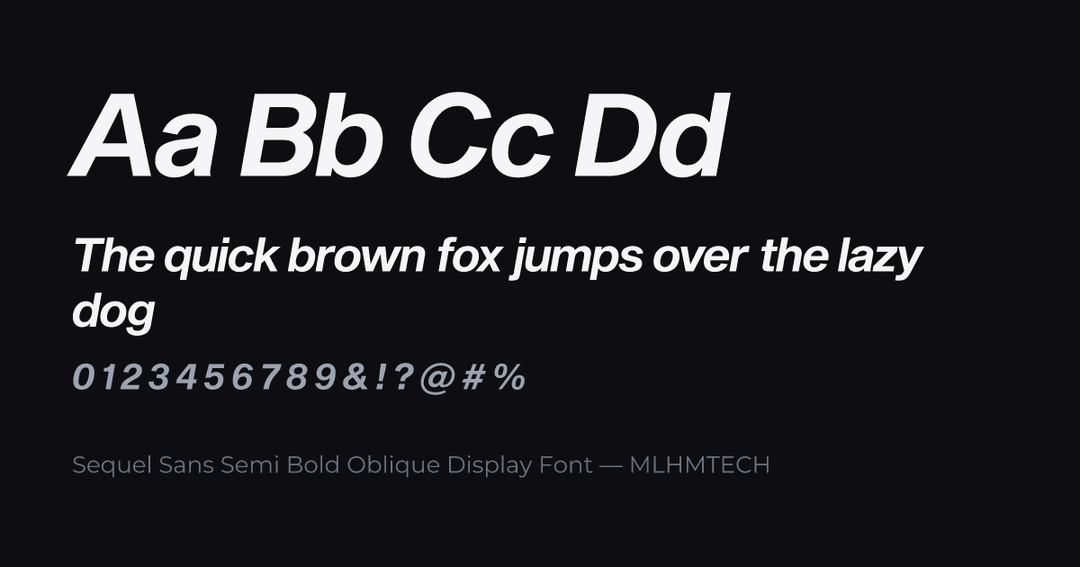
Sequel Sans Semi Bold Oblique Display Font
Sequel Sans Semi Bold Oblique Display is a modern, clean sans-serif font with an oblique slant, ideal for impactful headings and branding.
Sequel Sans Semi Bold Oblique Display is a versatile sans-serif typeface that combines a semi-bold weight with an oblique (slanted) style, giving your designs a dynamic and contemporary feel. Its clean lines and geometric structure make it perfect for headlines, logos, posters, and any project that requires a bold yet refined typographic presence.
This font is part of the Sequel Sans family, known for its extensive range of weights and styles. The oblique version adds a subtle forward momentum, making it suitable for motion graphics, video titles, and modern editorial layouts. Whether you're working on a brand identity or a social media campaign, this font will elevate your visual communication.